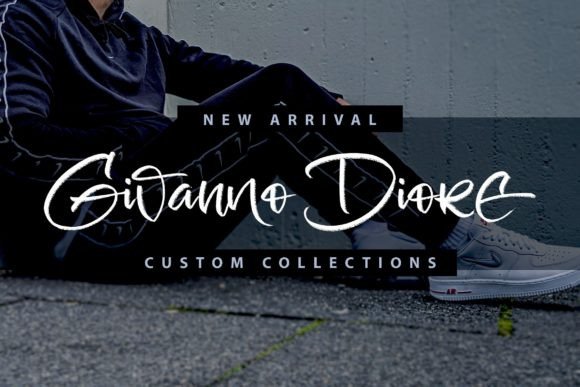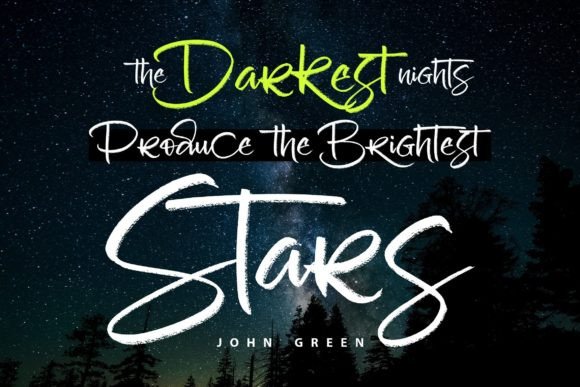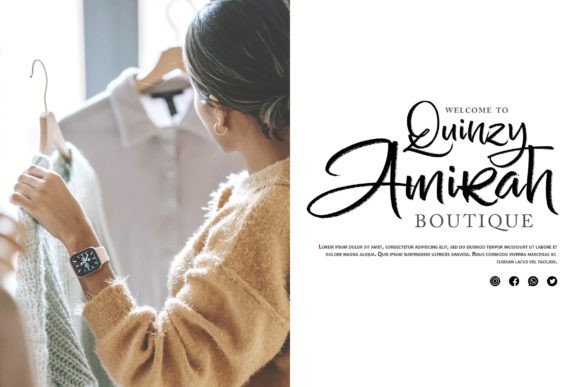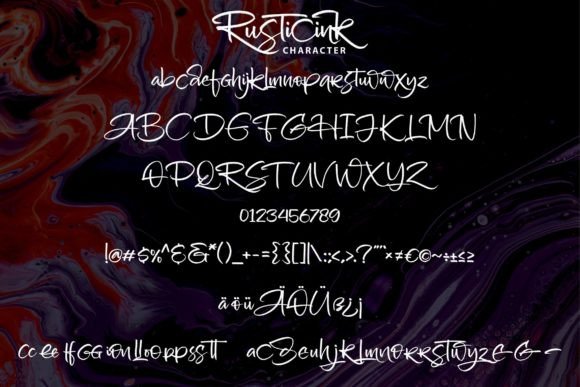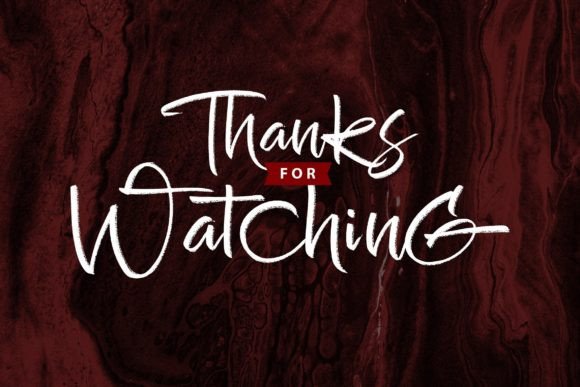
Introduction to Rusticink Font
Have you ever stumbled upon a design that just stops you in your tracks? A beautiful logo, a stunning quote, or a creative project that sparks inspiration? For designers, those moments are what make all the hard work worth it. And, when it comes to creating those eye-catching designs, the right font can make all the difference.
Enter the Rusticink Font, a natural and timeless handwritten font that’s perfect for adding a personal touch to your designs. With its unique and beautiful letters, this font is a game-changer for designers looking to elevate their creative projects. Whether you’re working on a branding project, a logo, or a quote, the Rusticink Font is a valuable resource that’s sure to bring your designs to life.
Key Features of Rusticink Font
- High-quality, hand-drawn design perfect for creative projects and design resources.
- Features a unique, distressed aesthetic with a transparent background, ideal for adding texture and depth to designs.
- Perfect for use in branding, signage, packaging, and other creative projects where a rustic, vintage feel is desired.
Honest Review: Rusticink Font
I recently stumbled upon the Rusticink Font, and I’m excited to share my honest review with you. As a designer, I’m always on the lookout for high-quality design resources that can elevate my creative projects.
- The Rusticink Font boasts a unique, hand-drawn aesthetic that adds a touch of warmth to any design.
- The font is highly customizable, allowing me to adjust the transparency and layering to suit my design needs.
- The Rusticink Font may not be suitable for designs that require a more modern or minimalist look.
- The font’s bold and italic styles can be a bit inconsistent in terms of line thickness.
Overall, I’m impressed with the Rusticink Font’s potential to add a personal touch to creative projects. With its high-quality design and transparent background capabilities, it’s a great addition to any designer’s toolkit. However, it’s essential to consider the font’s limitations when choosing it for specific projects.
Rusticink Font is a high-quality design resource perfect for creative projects. With its unique and elegant style, it’s ideal for a variety of applications.
For the best results, use Rusticink Font with a transparent background to create a clean and modern look. Experiment with different font sizes and combinations to add depth and visual interest to your design.
Rusticink Font is perfect for a wide range of creative projects, including: